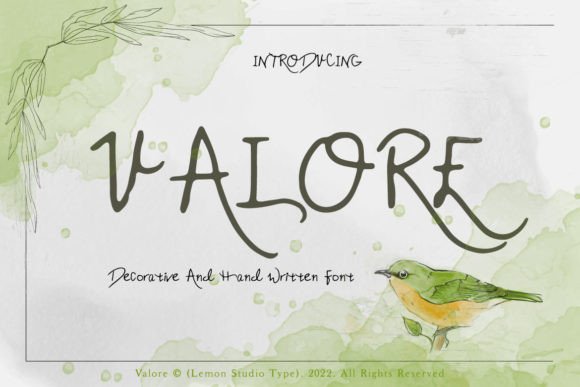
Unleash the Enchantment of Valore: A Retro Handwritten Font to Capture Timeless Beauty
Journey back to an era of elegance and nostalgia with Valore, a mesmerizing handwritten font that oozes retro charm and captivating aesthetics. Inspired by the allure of bygone years, Valore transports you to a world of vintage allure and timeless beauty.
Crafted with meticulous attention to detail by the talented WildaKhairunnisa, Valore exudes a distinct retro style that's perfect for conjuring a sense of nostalgia and evoking heartfelt emotions in your designs. Its graceful strokes dance across the page, carrying a whisper of the past and inviting you to explore the depths of your imagination.
Whether you're crafting enchanting wedding invitations, designing eye-catching headings, or creating covers that exude a timeless appeal, Valore is your perfect companion. Its versatility extends to old magazines, fairy tale books, and any project that calls for a touch of retro elegance.
Embrace the magic of Valore and let your creativity flourish. Allow its enchanting characters to weave their spell on your designs, captivating your audience with their undeniable charm. Immerse yourself in the beauty of the past and create designs that resonate with a timeless allure.
Step into a world of retro enchantment with Valore, the ultimate font for capturing the essence of nostalgia and creating designs that leave a lasting impression. Experience the power of Valore and let your imagination soar.